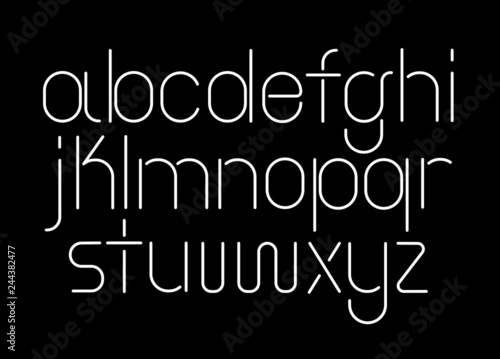
Neon linear tube font, uppercase and lowercase grotesque sans serif typography, soft and light minimalistic stencil letters for neon signs and advertising boards